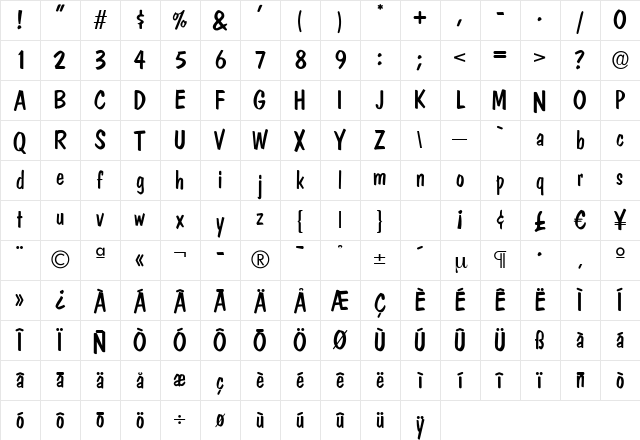
Complete SabrinaBecker Regular glyph index. Displaying only characters natively supported by SabrinaBecker Regular font.
SabrinaBecker is a composed and adaptable typeface that performs quietly and consistently across a wide range of design contexts.